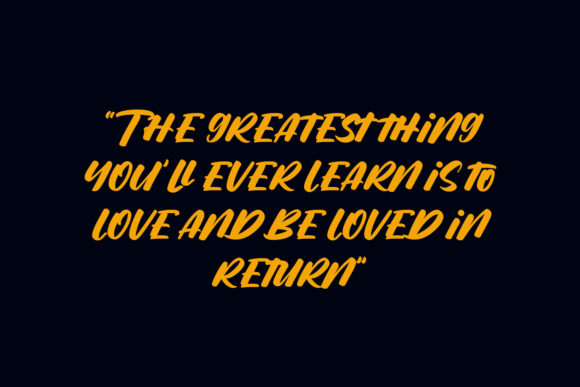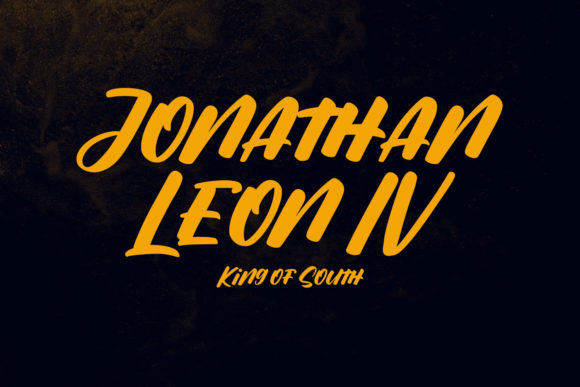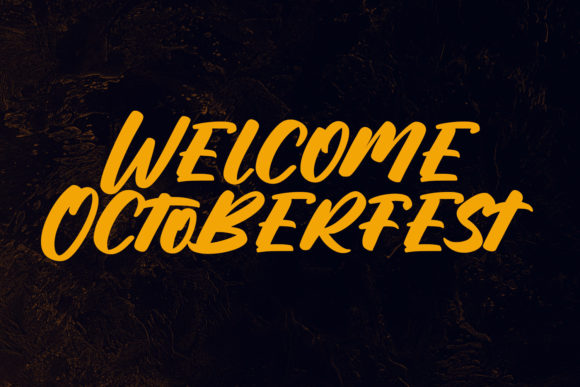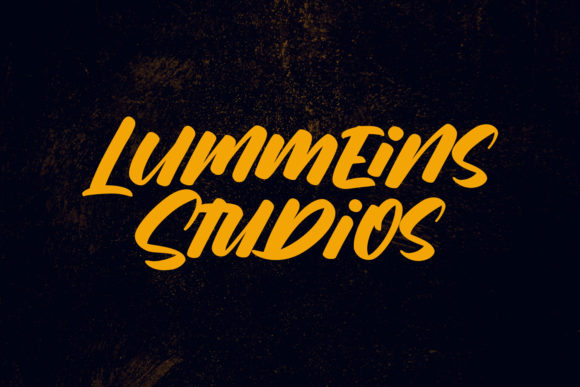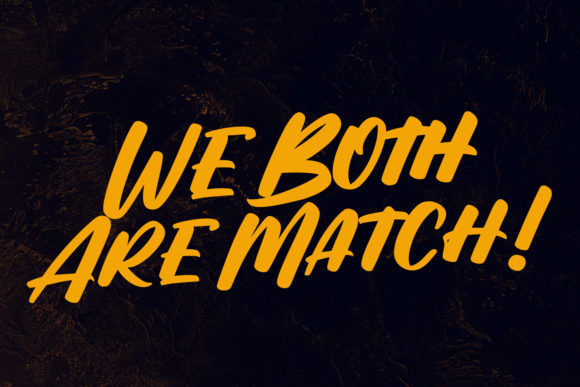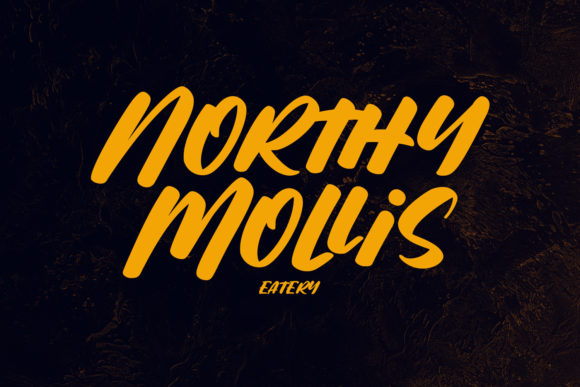
Introduction to Maxthrone Font Font
Fonts play a crucial role in design, and the Maxthrone Font font is a typeface that brings both character and versatility to any project. Whether you’re working on a branding project, a website, or a print design, the Maxthrone Font font offers a unique style that can elevate your work.
Maxthrone is a cool, relaxed and street styled display font.
This font is suitable for designs such as t-shirts, sportswear, logos, advertisements, clothing, and more .
Key Features of Maxthrone Font Font
Why Choose Maxthrone Font Font?
The Maxthrone Font font is more than just a typeface – it’s a design tool that helps you communicate your message with style and clarity. Its unique character set and versatile design make it suitable for a wide range of applications, from elegant invitations to bold headlines.
With its carefully crafted letterforms and balanced proportions, the Maxthrone Font font ensures readability and visual appeal across all mediums.
What makes Maxthrone Font font special?
The Maxthrone Font font stands out with its unique design, exceptional readability, and versatility across various design applications.